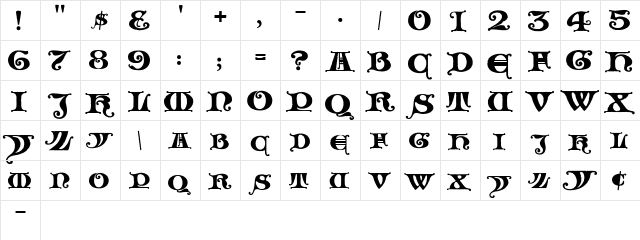
LHF Henderson Church Regular
Design Context for LHF Henderson Church Typeface
LHF Henderson Church is a composed and adaptable typeface that performs quietly and consistently across a wide range of design contexts.